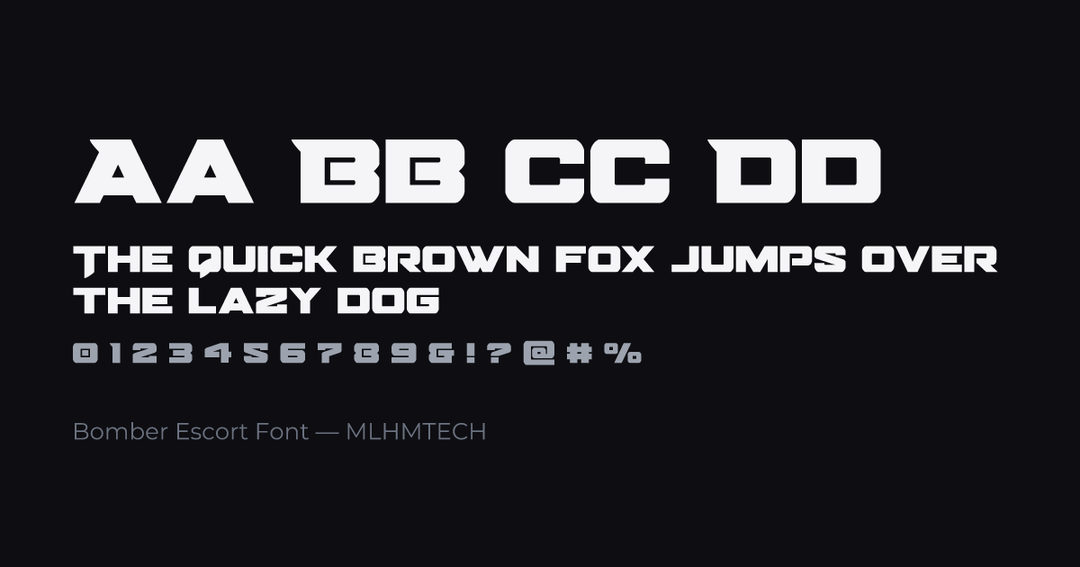
Bomber Escort Font
Bomber Escort is a bold, military-inspired display font with a rugged, vintage feel. Perfect for posters, logos, and apparel designs.
Bomber Escort is a striking display font that exudes strength and attitude. Its bold, stencil-like letterforms are inspired by military typography and urban streetwear, giving your designs an instant edge. Whether you're creating a movie poster, a brand logo, or a t-shirt graphic, this font commands attention.
The font includes uppercase and lowercase letters, numerals, and punctuation, making it versatile for a range of projects. Its clean lines and high legibility ensure it works well at both large and small sizes. Pair it with a simple sans-serif for a modern contrast, or use it on its own for maximum impact.